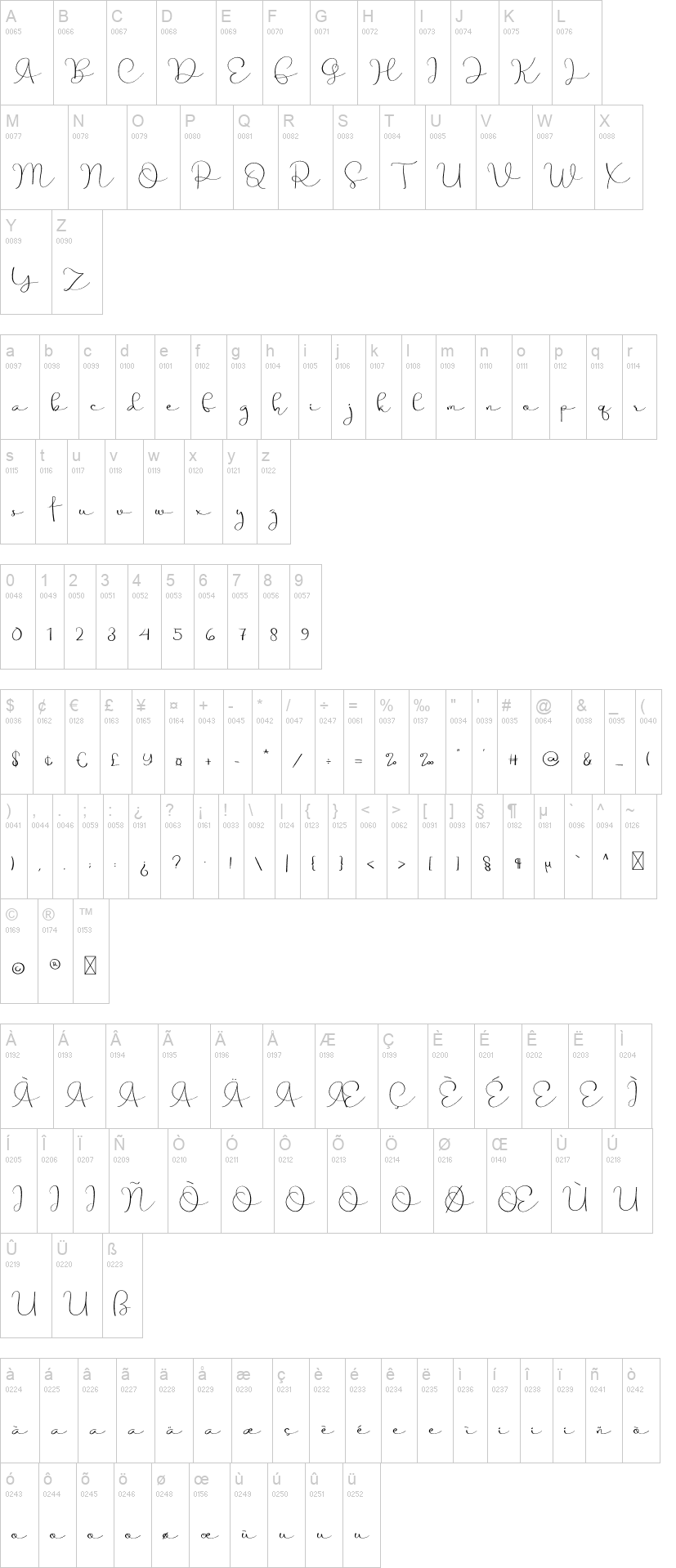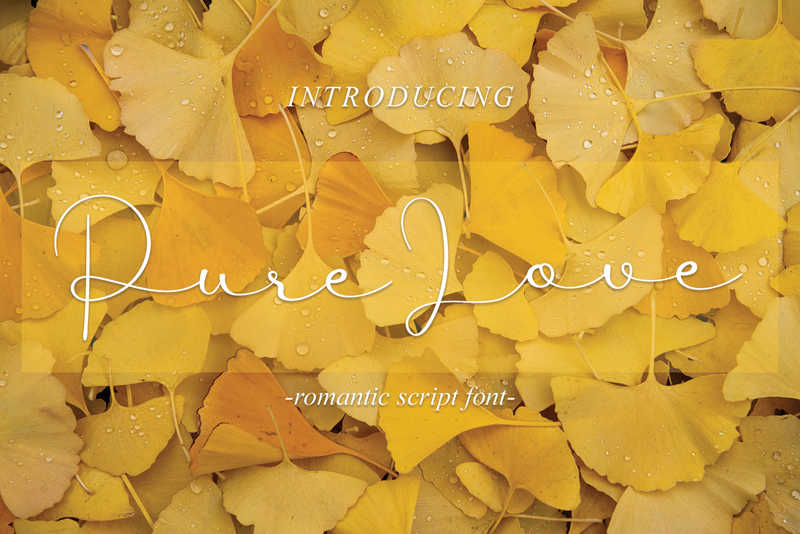
Note of the authorPure Love is a sweet and delicate handwritten font. Dainty and joyful, this font will be ideal for writing wedding invitations, cards or any other design that may need a romantic, personalized touch!